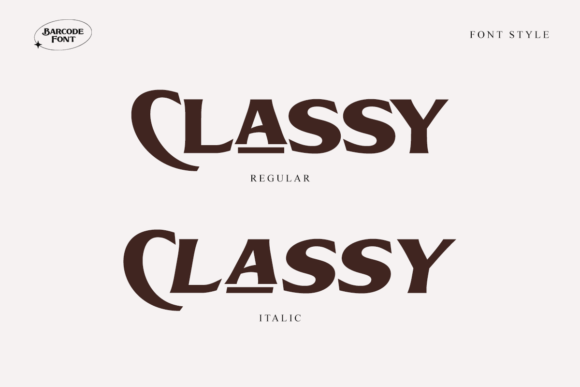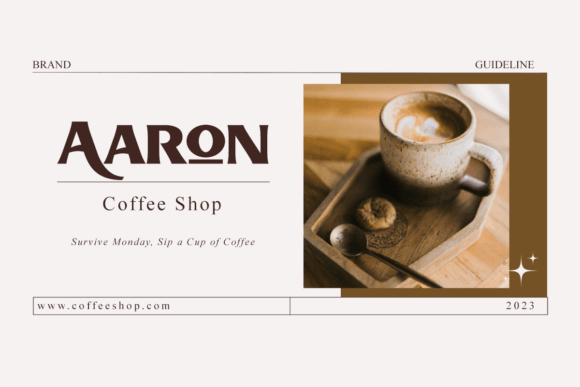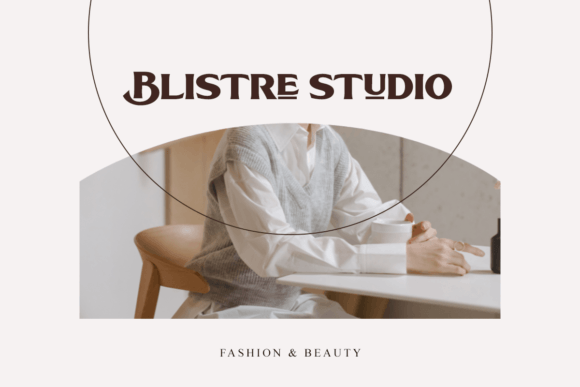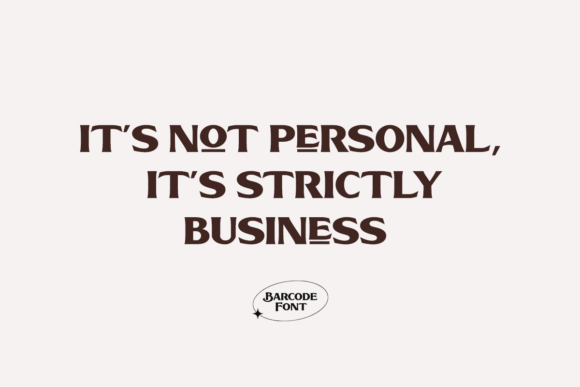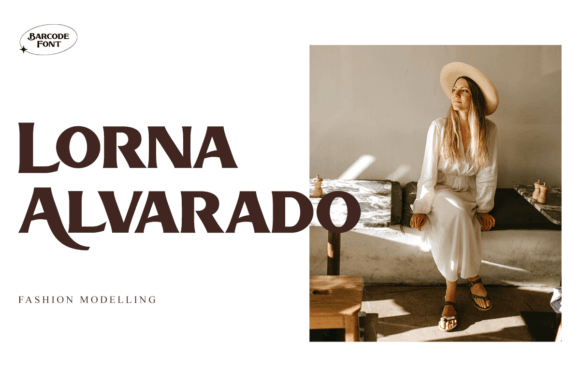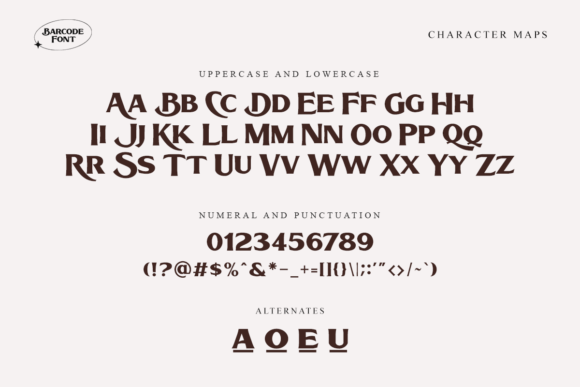
Bacode Font: Elevate Your Designs with a Cool and Unique Vintage Serif
In the world of typography, fonts play a crucial role in making or breaking a design. A perfect font can elevate your project from ordinary to extraordinary, while a poorly chosen one can have the opposite effect. For designers and crafters looking for a unique and versatile font to enhance their designs, Bacode Font is an excellent choice. Bacode is a cool and unique vintage serif font that can add a touch of elegance and sophistication to any project.
The Charm of Bacode Font
Bacode Font boasts a distinctive vintage style that sets it apart from other fonts. Its serif design gives it a classic and timeless look, making it perfect for projects that require a touch of nostalgia or retro flair. The font’s unique character set and elegant lines make it an asset to any font library, allowing designers to create stunning designs that capture the essence of their brand or message.
Why Choose Bacode Font?
So, what makes Bacode Font an excellent choice for designers and crafters? Here are a few reasons:
- Versatility: Bacode Font is incredibly versatile, making it suitable for a wide range of design projects, from logos and branding to packaging, posters, and more.
- Unique Style: The font’s vintage serif design gives it a unique and distinctive look that sets it apart from other fonts.
- Elegance: Bacode Font exudes elegance and sophistication, making it perfect for projects that require a touch of refinement.
- Easy to Read: Despite its ornate design, Bacode Font is easy to read, making it suitable for body text and headlines.
Use Cases for Bacode Font
Bacode Font is an excellent choice for a variety of design projects, including:
- Logos and Branding: Create a unique and memorable logo for your brand with Bacode Font.
- Packaging Design: Add a touch of elegance to your product packaging with this beautiful font.
- Poster Design: Create eye-catching posters for events, promotions, or advertisements using Bacode Font.
- Stationery: Elevate your stationery designs, such as business cards, letterheads, and envelopes, with this stunning font.
Tips for Using Bacode Font
To get the most out of Bacode Font, here are a few tips:
- Pair it with a Sans-Serif Font: Pair Bacode Font with a sans-serif font to create a beautiful contrast and add visual interest to your design.
- Experiment with Colors: Try out different colors and textures to add depth and dimension to your design.
- Use it for Headlines and Titles: Bacode Font is perfect for headlines and titles, so use it to create eye-catching and attention-grabbing text.
In conclusion, Bacode Font is a cool and unique vintage serif font that can elevate any design project. Its versatility, elegance, and ease of use make it an excellent choice for designers and crafters looking for a font that can add a touch of sophistication to their work. Whether you’re creating a logo, packaging design, poster, or stationery, Bacode Font is sure to be an asset to your font library.